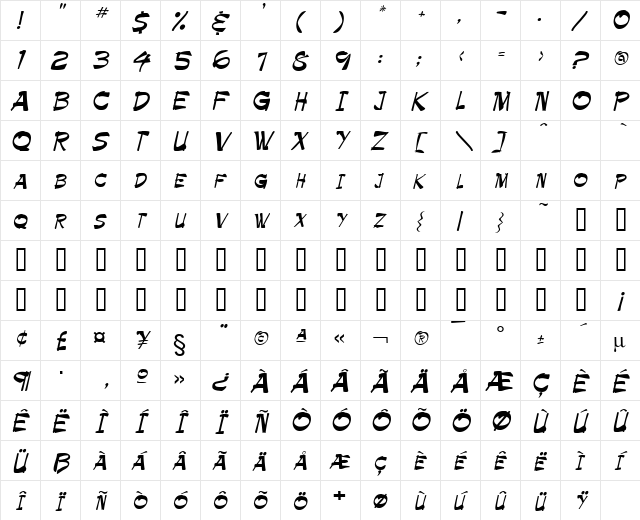
Palamino Italic Font Preview
Palamino Italic
Design Context for Palamino Typeface
Palamino is a composed and adaptable typeface that performs quietly and consistently across a wide range of design contexts. The slanted form adds forward momentum and visual energy.